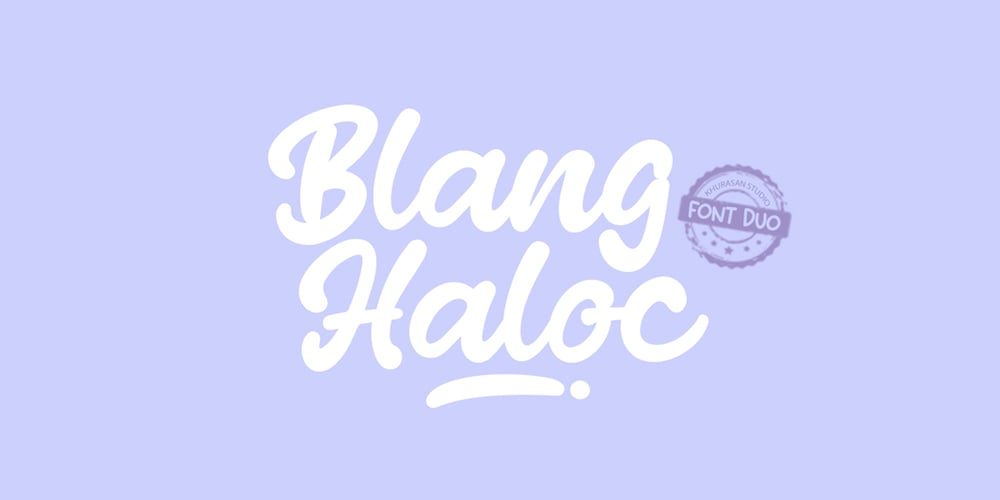
Blang Haloc
Blang Haloc font
Blang Haloc Font Family was designed by Syaf Rizal and published by Khurasan. Blang Haloc contains 1 styles and family package options. Blang Haloc is a fun bold script font perfect for posters, logos, magazines, book covers, banners, and many more! Get this amazing freebie, and use it to create lovely designs!